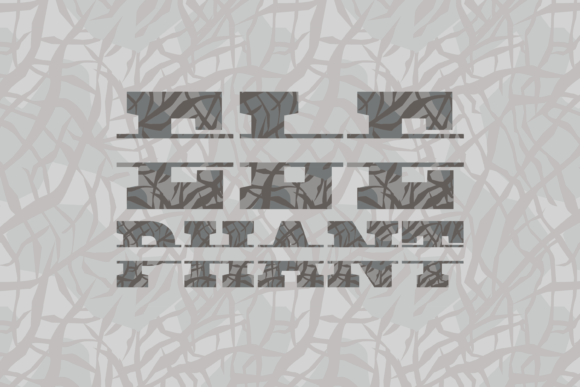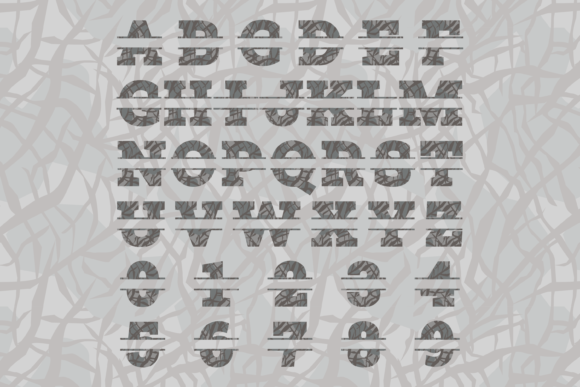
Elephant Split Font
Elephant Split is indeed a fantastic font that showcases cute and charming elephant-themed elements. Whether you’re working on custom designs, DIY crafts, or any creative project that needs a touch of loveliness, this font is an amazing choice that will add a playful and whimsical vibe.
With Elephant Split, you’ll have access to a delightful collection of adorable elephant-inspired characters that can instantly bring a smile to anyone’s face. The font’s versatility allows you to incorporate it into various projects, from designing charming greeting cards and invitations to creating eye-catching posters and captivating digital graphics.
Embrace the creativity and uniqueness that Elephant Split offers, and watch as your designs come to life with its delightful charm. Each character carries the spirit of these majestic creatures, adding a sense of joy and wonder to your artwork. Whether you’re aiming for a cute and whimsical aesthetic or simply want to bring a touch of loveliness to your designs, Elephant Split will help you achieve that effortlessly.
Let your imagination run wild with Elephant Split and explore the endless possibilities it brings. Get ready to capture the hearts of viewers and infuse your projects with a dose of delightful charm that only these adorable elephants can bring.